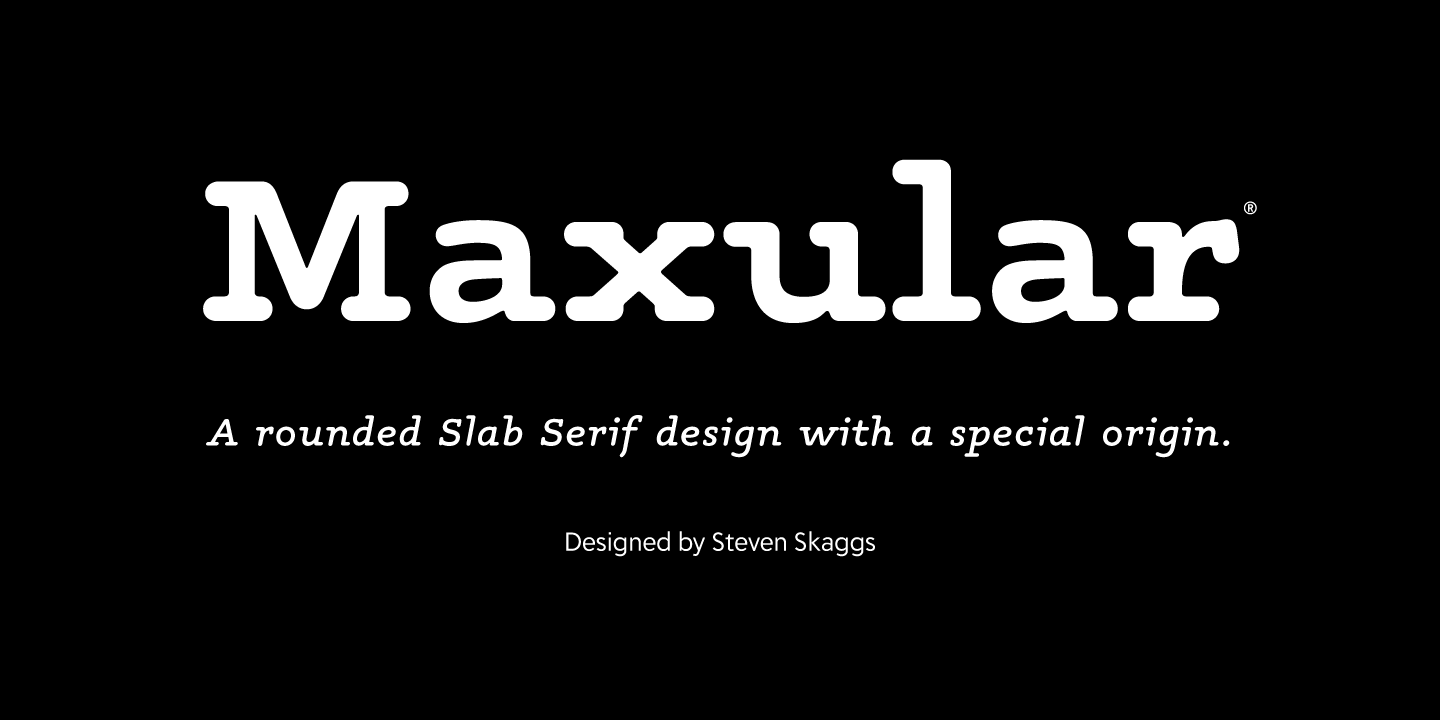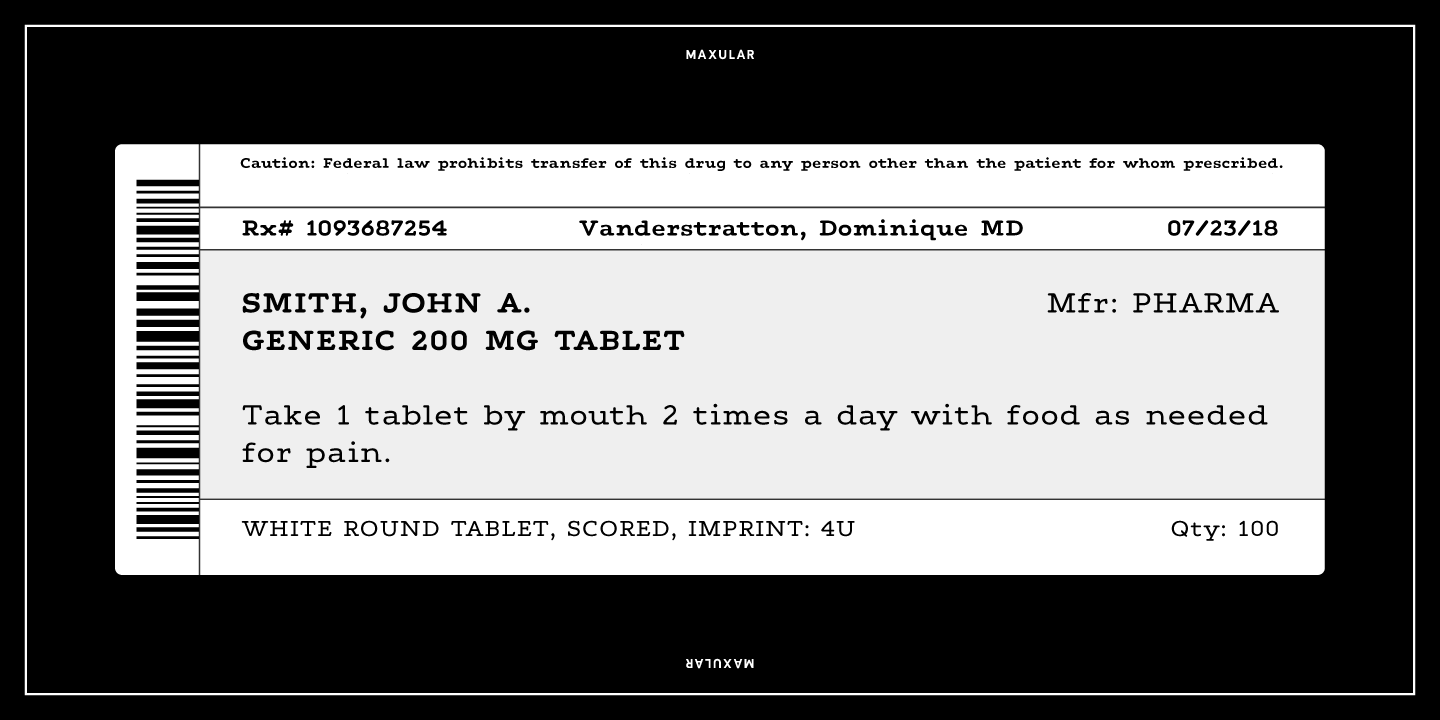
Maxular
Maxular Rx by Steven Skaggs is the first type expressly designed and scientifically proven to address Macular Degeneration (MD) visual related distortions. Serifs aid in separating one letter from another for those with MD and corners are rounded to avoid distortion effects. Wider letters, word spacing and increased line space project the glyphs clearly into peripheral vision for easier recognition. In addition to the Maxular Rx versions, six weights plus italics intended for general use are available. Every font in the Maxular family has a repertoire of over 700 glyphs supporting 222 languages. A useful set of arrows and a handful of fun alternate glyphs in the italics are also included.